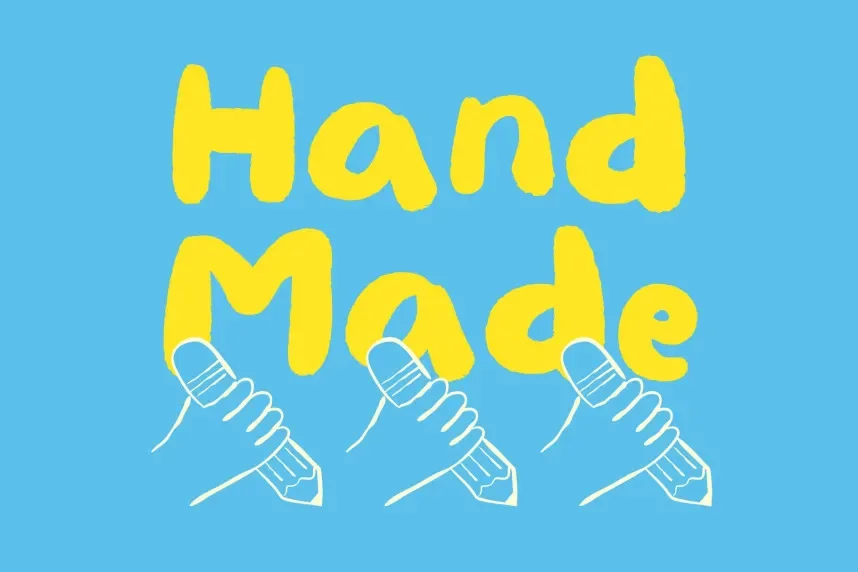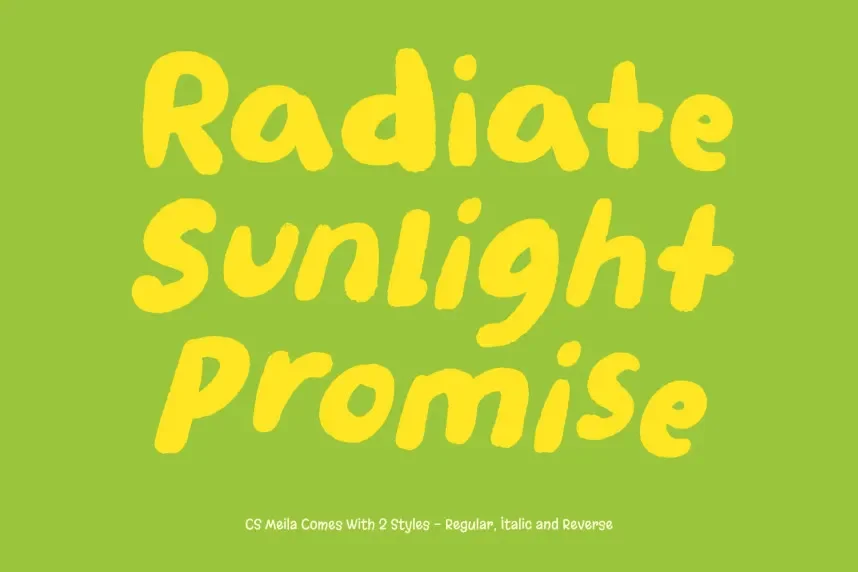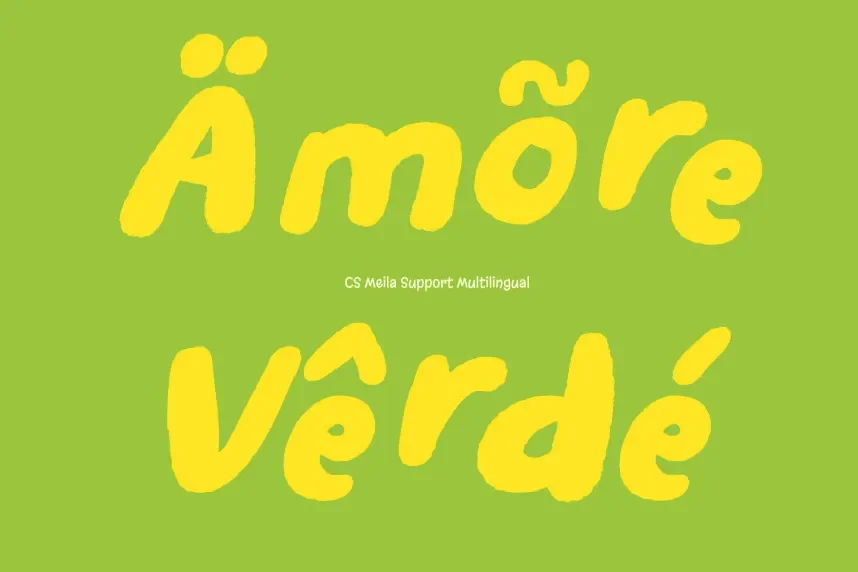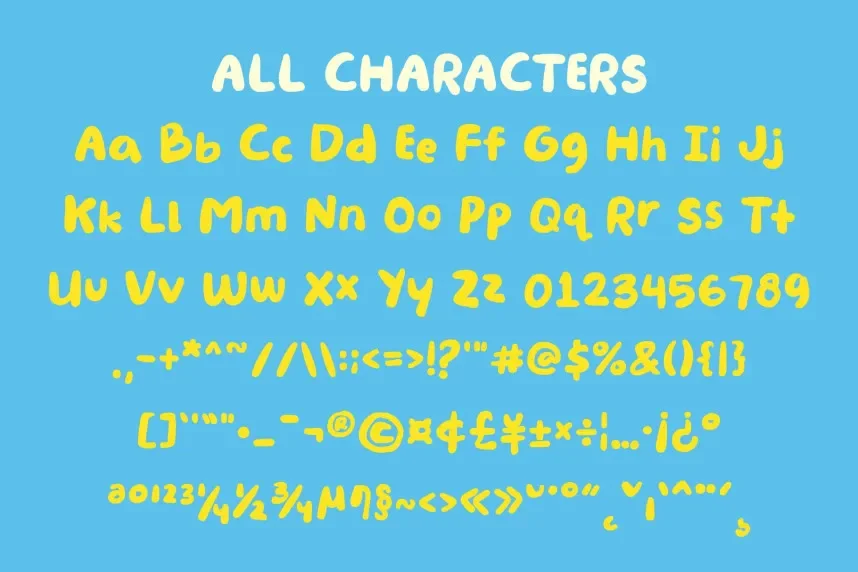
CS Meila Font supports designers who need expressive typography without losing text clarity. Many decorative fonts appear crowded when used in social media graphics or branding assets.
CS Meila is a display font with rounded shapes, smooth curves, and balanced stroke widths. Letterforms remain open and evenly spaced, helping maintain legibility at medium and large sizes. The design avoids excessive ornamentation.